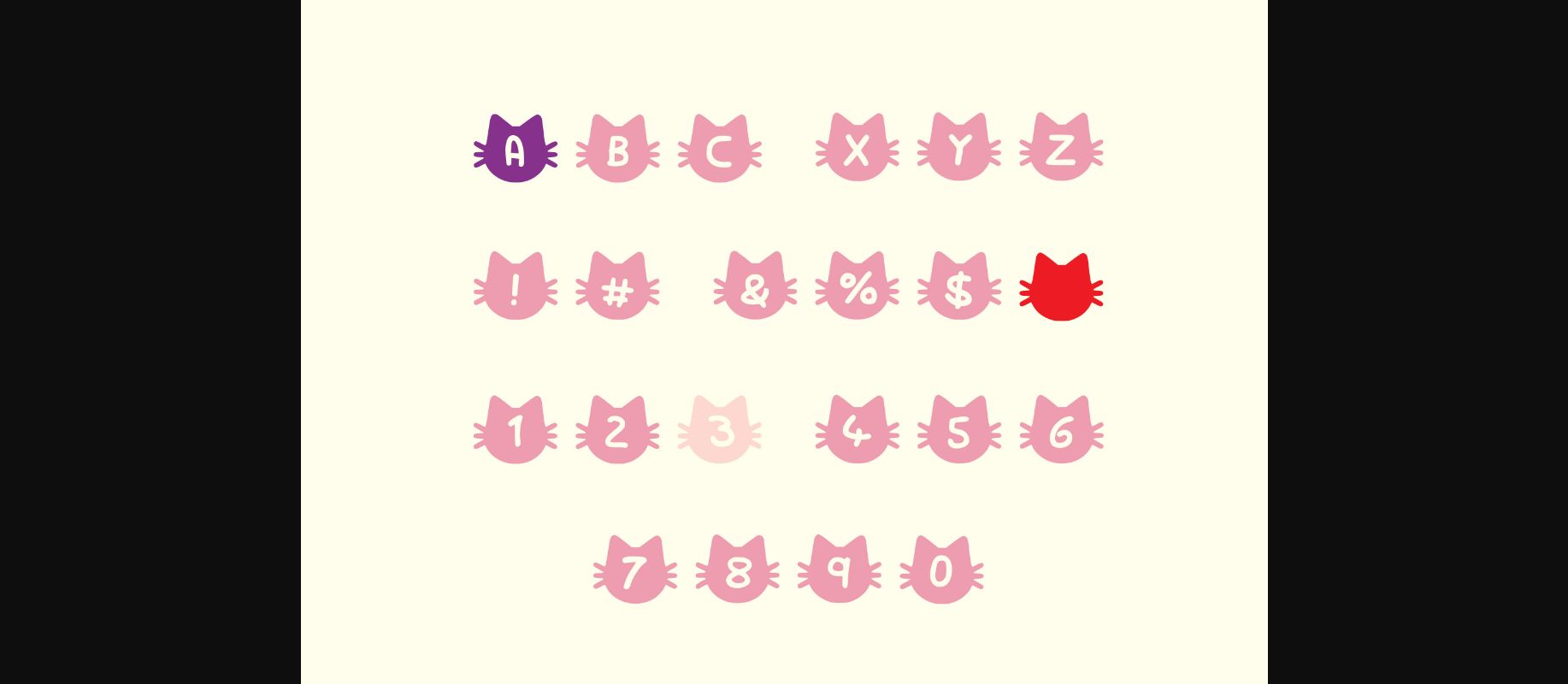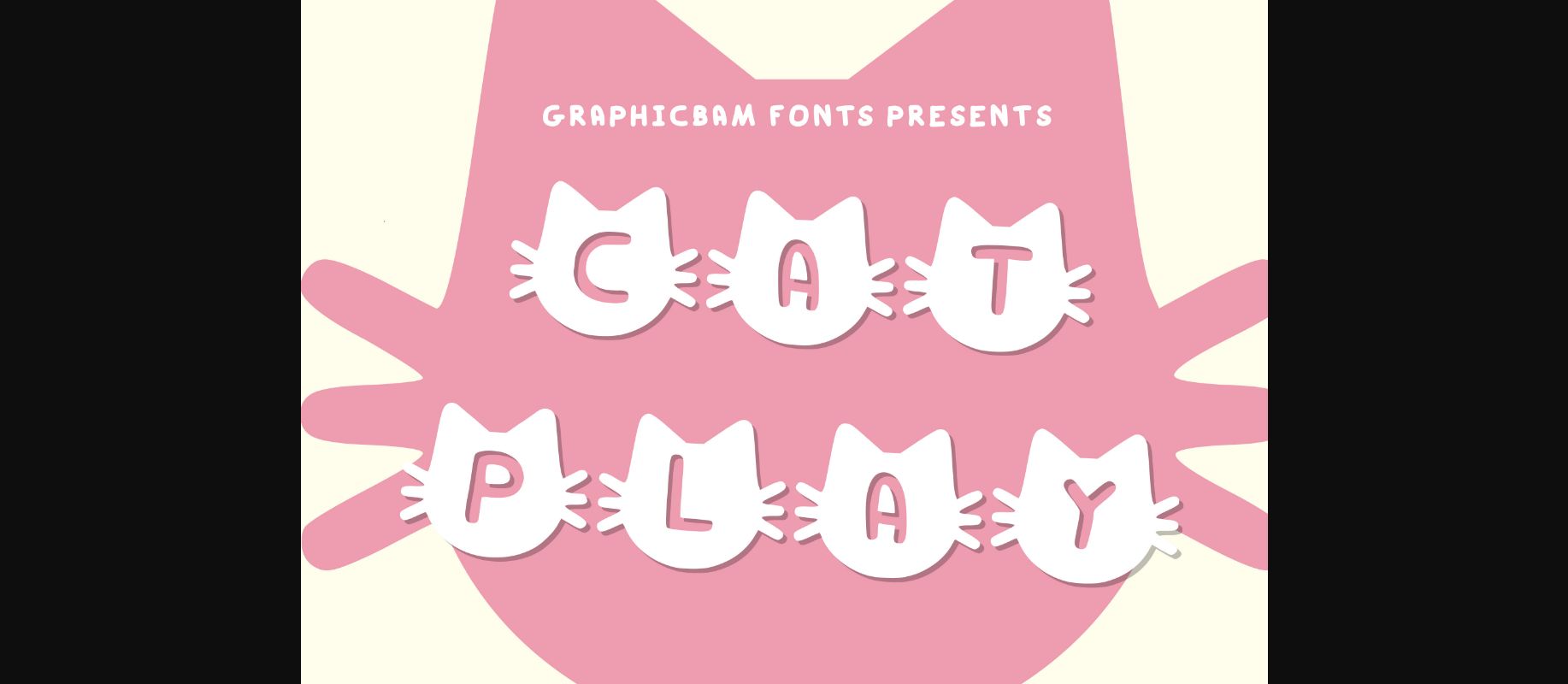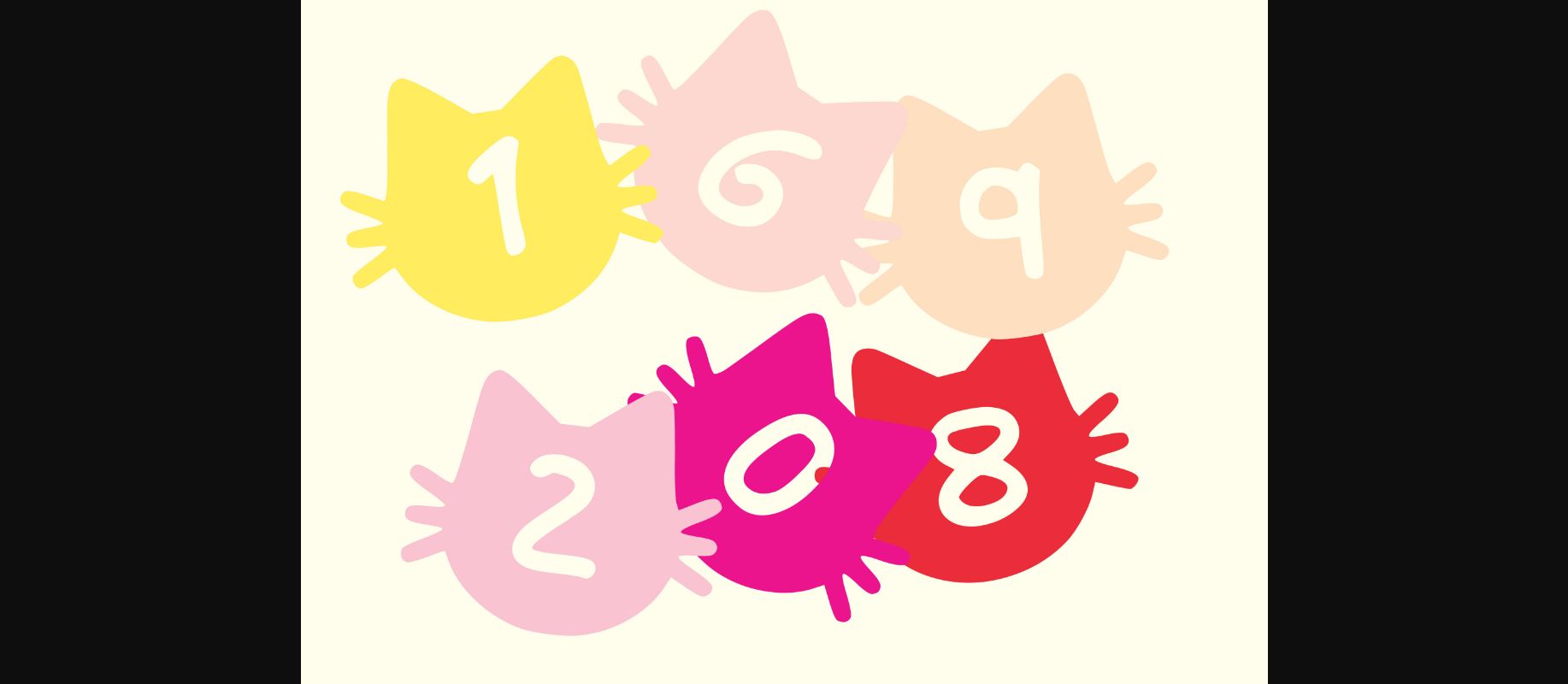
About Cat Play Font
Cat Play is a set of silhouette cat faces with a playful, child-like decorative font perfect to spell out anything to do with our furry feline friends! Handwritten with rounded sides make it a friendly and joyful font. Great for schools, home teaching, or a craft project.